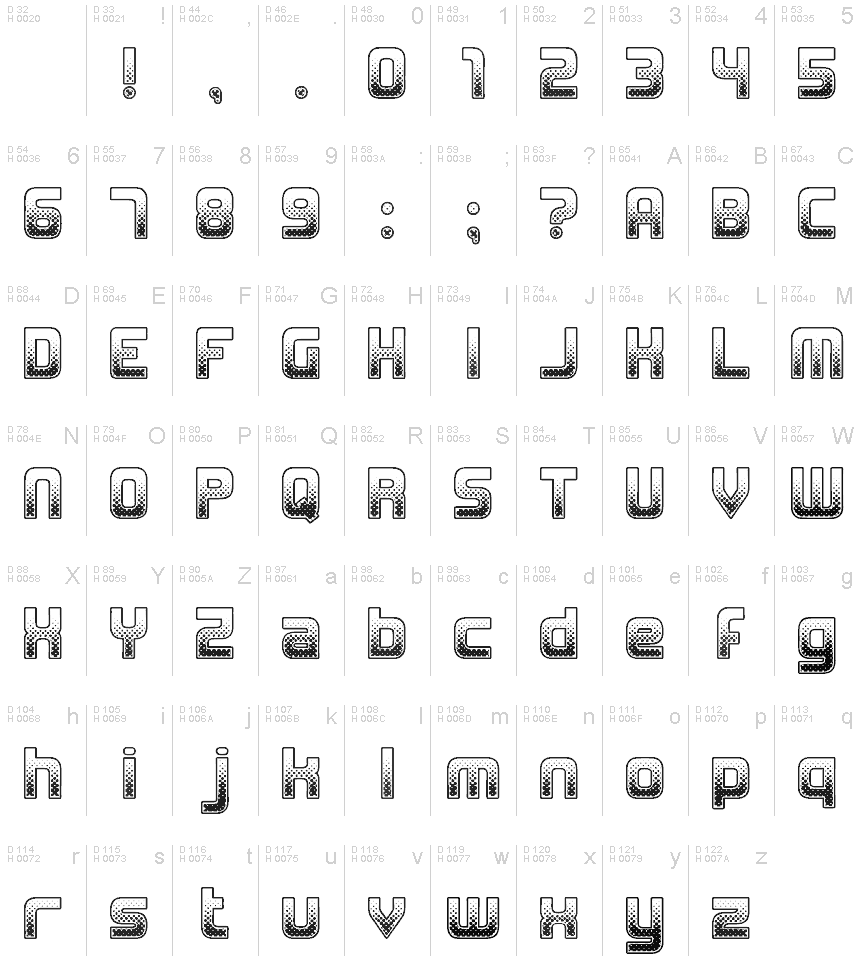
MDMA
MDMA by Anthony Robinson is a bold, dynamic display font that exudes a tantalizing techno-inspired aesthetic. Meticulously crafted with a striking geometric foundation, this font commands attention with its bold, angular letterforms and playful, modular construction. The contrasting dot patterns and sharp, precision-cut edges evoke a sense of digital energy and futuristic allure, making MDMA an impactful choice for a wide range of visually-driven designs.
The bold, techno-infused personality of MDMA lends itself well to eye-catching headlines, striking logos, and attention-grabbing digital interfaces. Its dynamic, futuristic flair makes it a natural fit for projects seeking to capture a sense of technological innovation, from event branding and concert posters to product packaging and mobile app interfaces. MDMA's versatility and unique aesthetic make it a compelling option for designers seeking to infuse their work with a bold, cutting-edge visual identity.